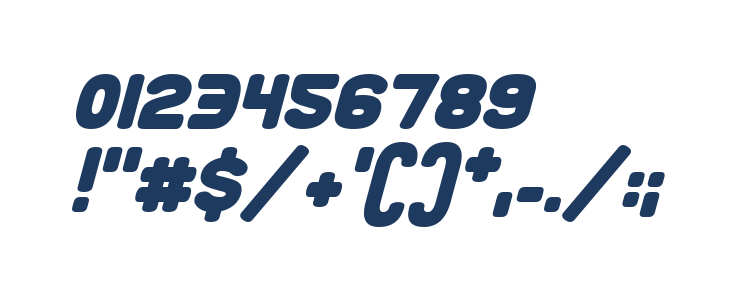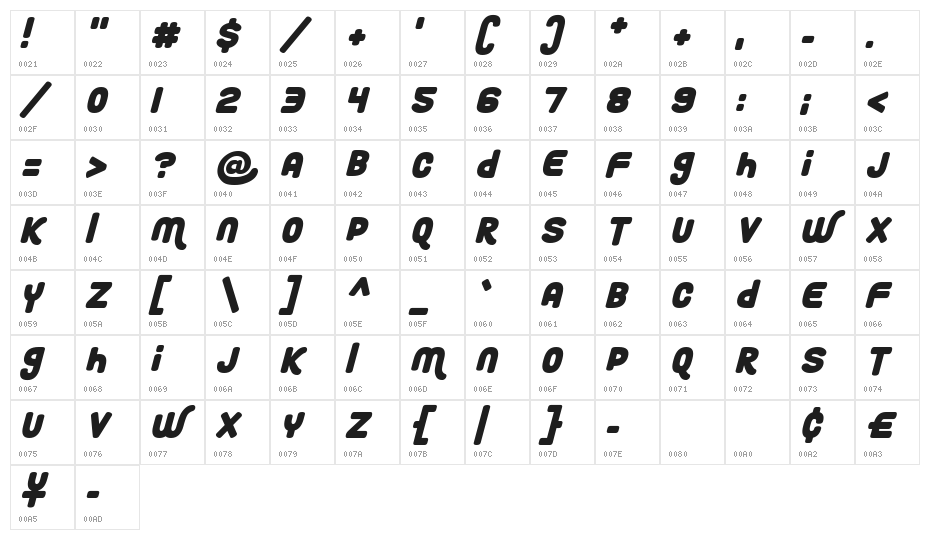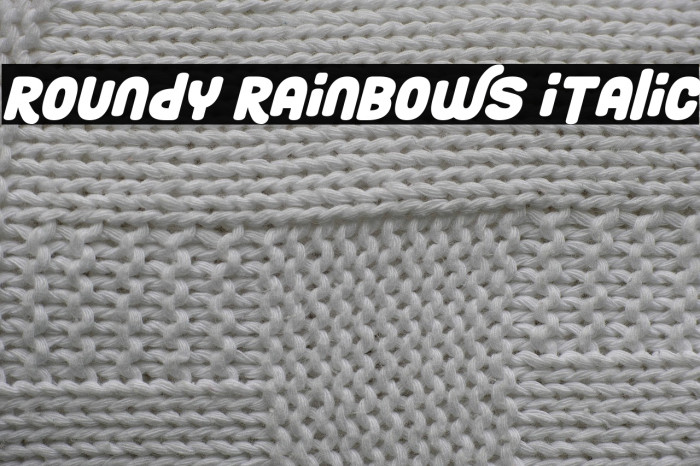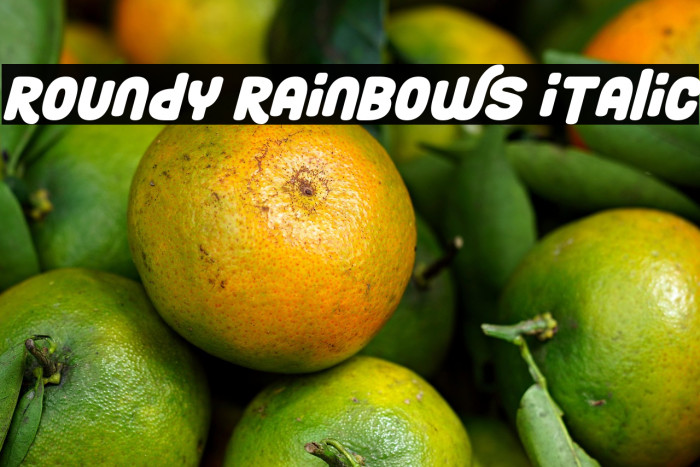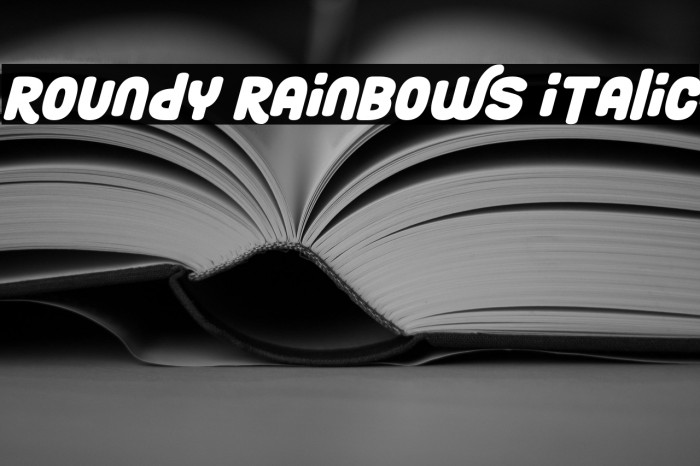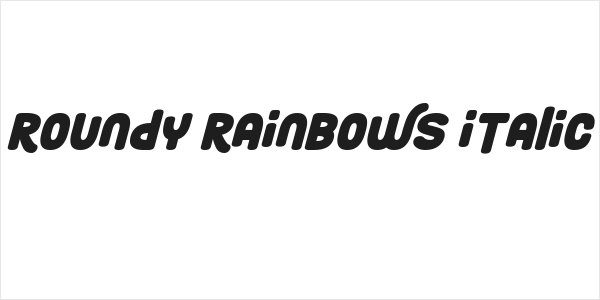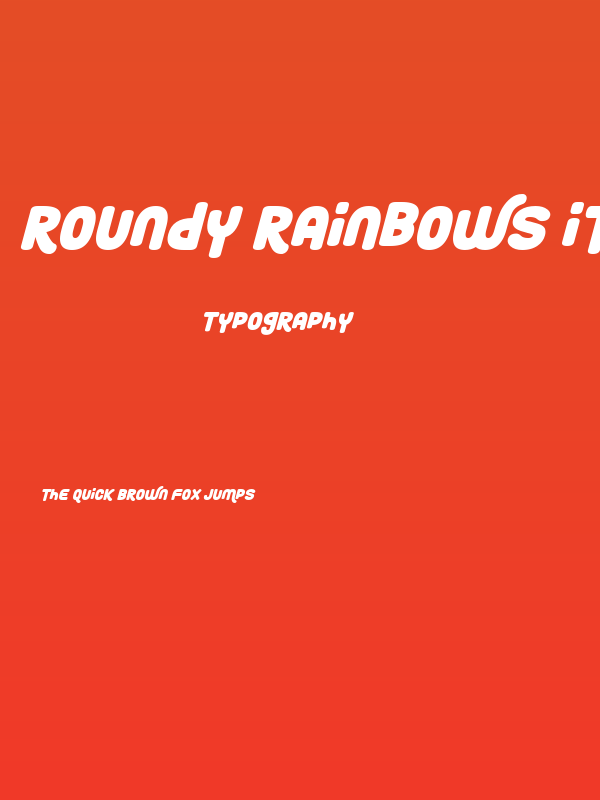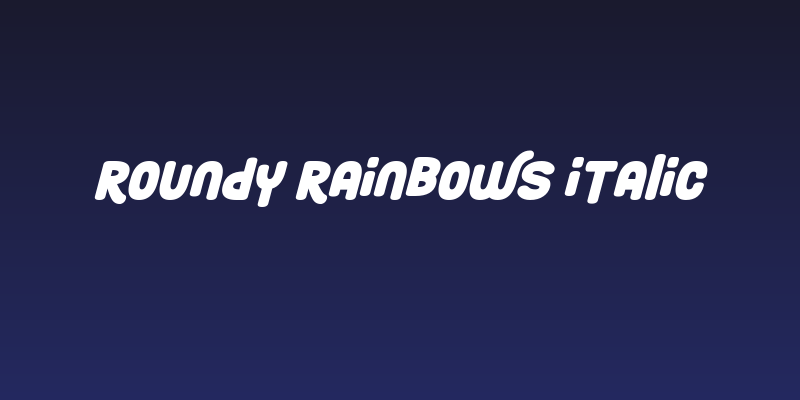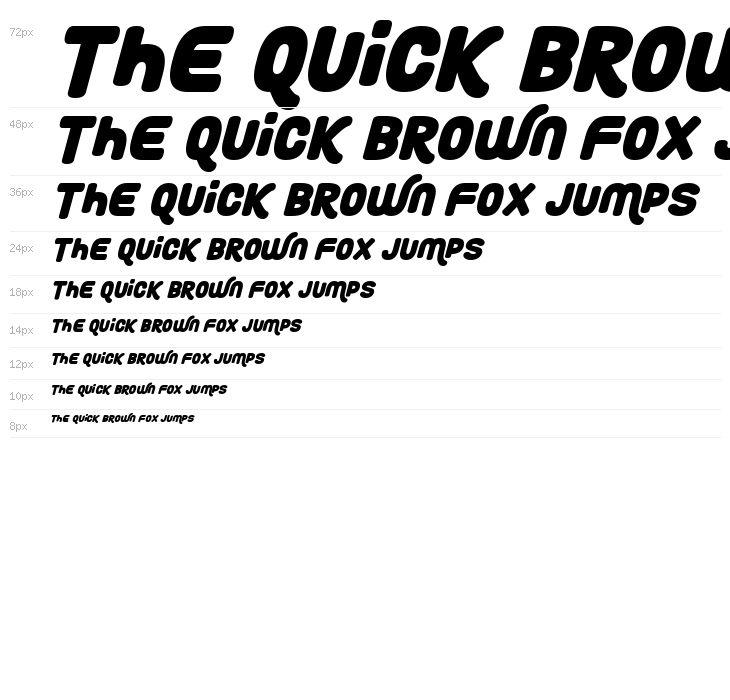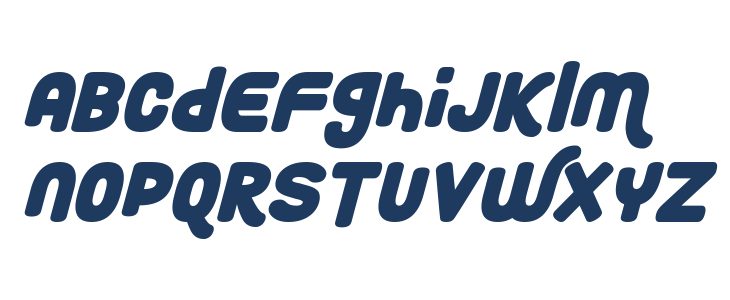
Roundy Rainbows Italic Font
Roundy Rainbows Italic Description
This playful and bold font features rounded, smooth edges and a consistent italic slant, giving it a dynamic and energetic appearance. The characters are thick and substantial, providing a strong visual impact. The rounded forms and uniform stroke width contribute to a friendly and approachable aesthetic. The font includes both uppercase and lowercase letters, numerals, and a variety of special characters, making it versatile for different design needs. Its boldness and rounded style make it stand out, while the italic slant adds a sense of motion and fluidity.
| Overall Style | Playful, Energetic, Modern |
| Proposed Projects | Ideal for children's books, playful branding, posters, and any project needing a fun and energetic typeface. |